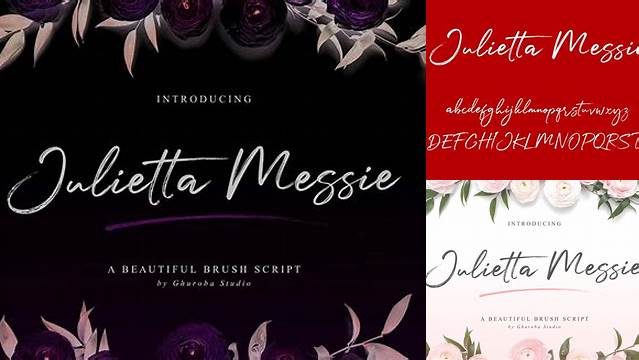
Hey guys! Are you on the hunt for a super cool and stylish font? Well, look no further because we're diving deep into the world of the Julietta Messie Demo Font! And the best part? You can get a free download! Yep, you heard that right! This article is your ultimate guide to everything Julietta Messie – from its unique features to where you can snag that free download. Let's get this font party started!
1. What Makes Julietta Messie Font So Special?
So, what's the deal with Julietta Messie? Why is everyone so hyped about it? Well, first off, it's got that hand-lettered feel that's super trendy right now. Think of it as your project’s secret weapon to inject some personality and charm. It's got a playful vibe, making it perfect for anything from invitations and greeting cards to branding projects and social media graphics. The font is designed with a modern twist, making it versatile enough to fit into various design styles. Its unique character set adds a touch of sophistication, setting your work apart from the crowd. The curves and strokes are meticulously crafted to provide a visually appealing experience, ensuring your message is conveyed with elegance. It’s like, imagine a font that instantly adds that 'wow' factor to your designs, making them pop and grab attention, and Julietta Messie does exactly that! It's the kind of font that makes people say, 'Ooh, where did you get that?'. Trust me, you'll love it. This font is a game changer for anyone looking to add a touch of personality and flair. It's not just a font; it’s a statement. And the demo version? It's like a sneak peek of all the awesome things you can do. Using Julietta Messie in your designs is a sure way to boost your creative output. Plus, the ease of use makes it a breeze for designers of all levels to implement.
2. Unveiling the Design Elements of Julietta Messie
Let’s get into the nitty-gritty of what makes Julietta Messie tick. The design of this font is all about a balance of elegance and playfulness. It blends a sophisticated look with an approachable feel, and the handwritten style gives it a genuine, human touch. Each letter is carefully designed to flow beautifully, making your text visually appealing and easy to read. The font often includes various stylistic alternates. This feature allows you to change certain letters to give your text a more customized look. Think of it as adding a personal touch to your design, which helps the design to stand out. It adds more unique elements. The different ligatures allow characters to flow seamlessly, adding sophistication to every word. This font family often comes with a variety of weights. These variations provide you with the flexibility to create an engaging visual hierarchy. They help to make different parts of your design stand out and lead the reader's eye naturally. The contrast between thick and thin strokes within the letters is another key element. This gives the font a dynamic look that captures attention and adds a modern vibe. Overall, the design elements of Julietta Messie are carefully crafted to offer both functionality and style. The thought behind each character allows designers to be versatile.